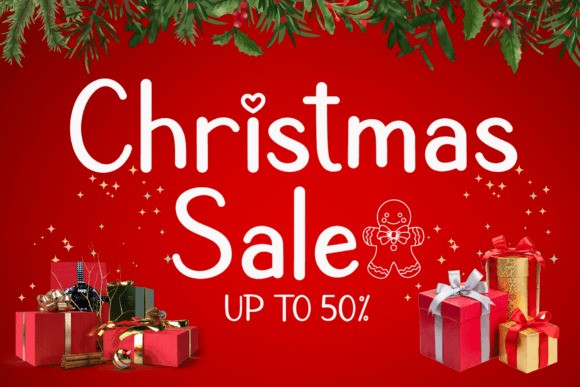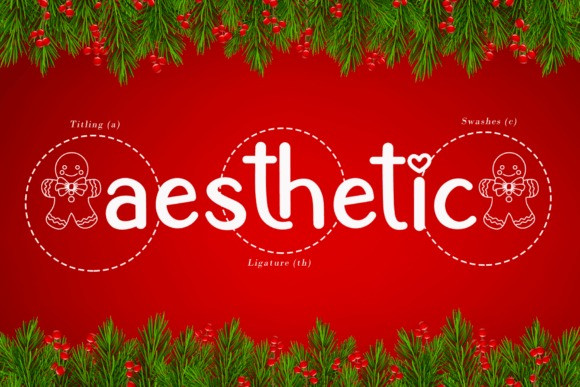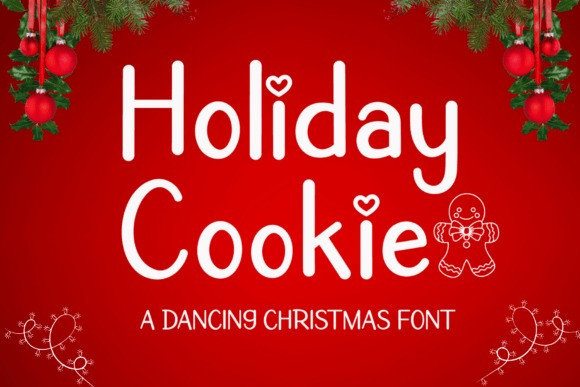
Holiday Cookie Font
Holiday Cookie Font combines the joy of the holiday season with the charm of a personal touch. Holiday Cookie’s playful letters and inviting design bring life to Christmas-themed crafts, branding, packaging, social media posts, and seasonal banners. Its festive appeal makes every project extra delightful.